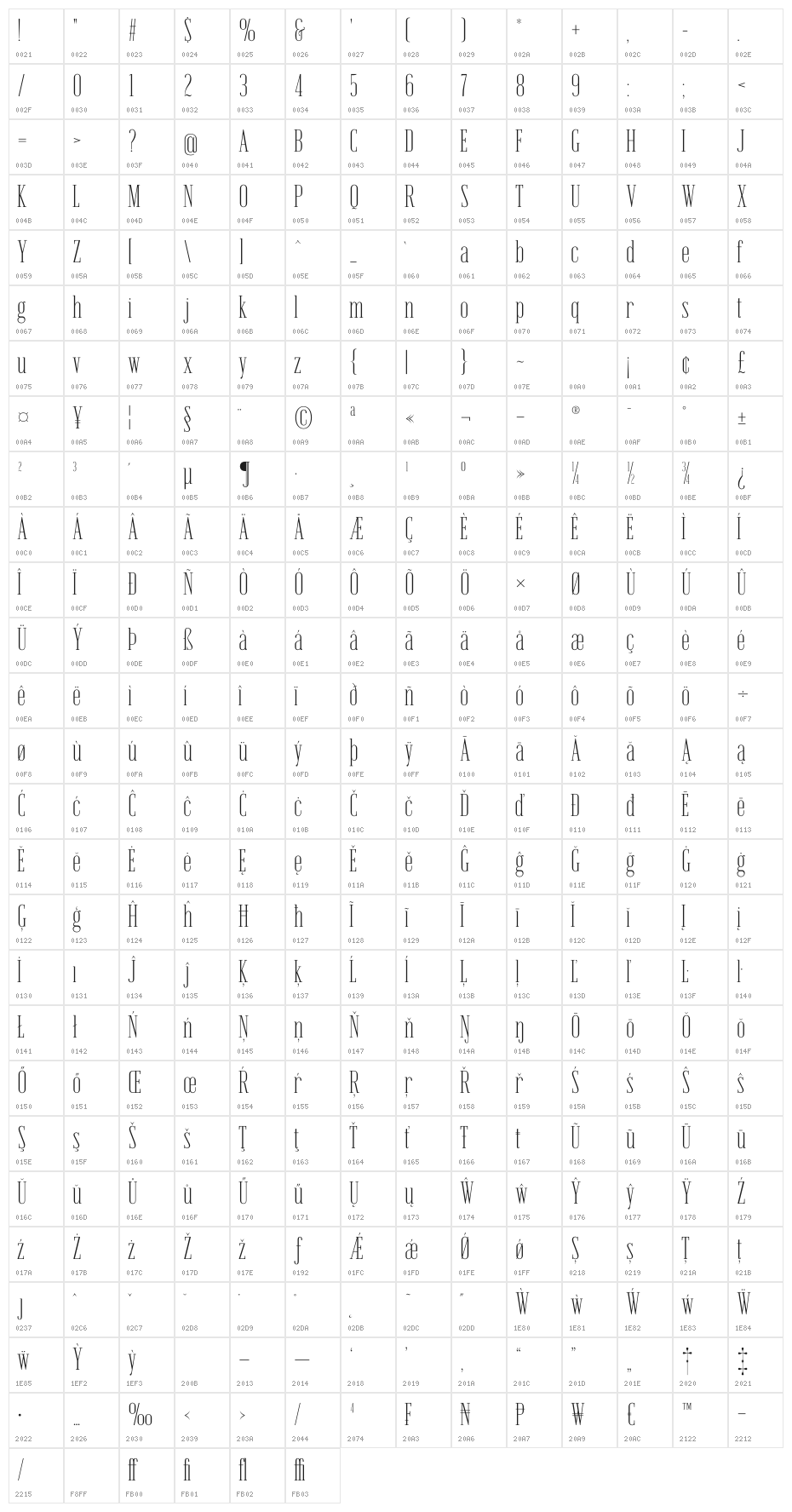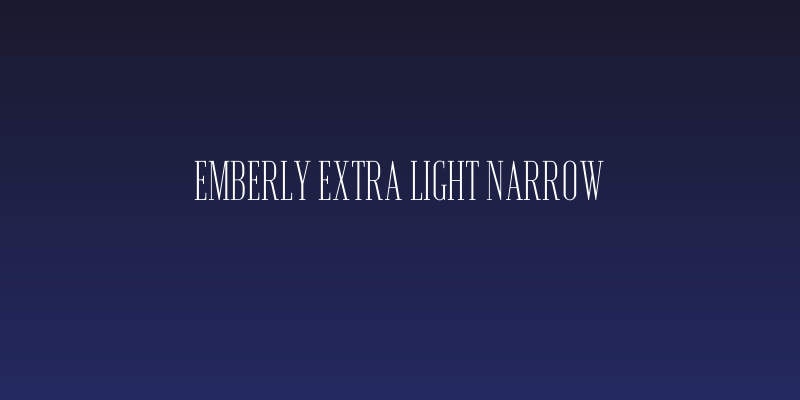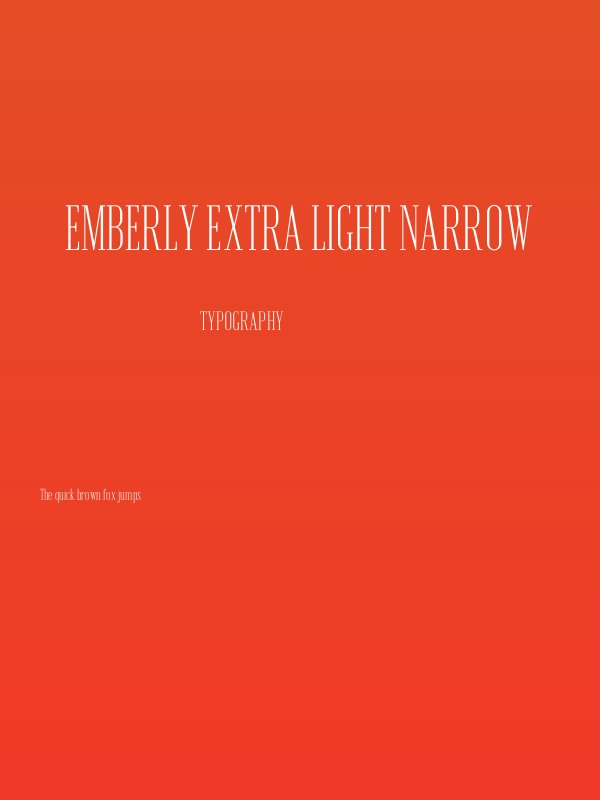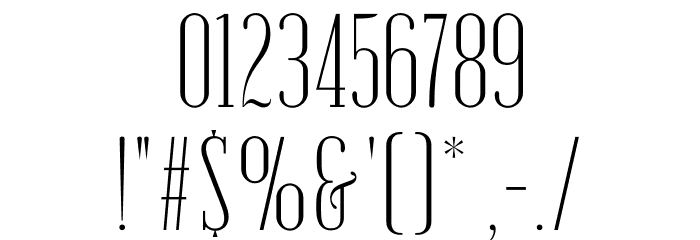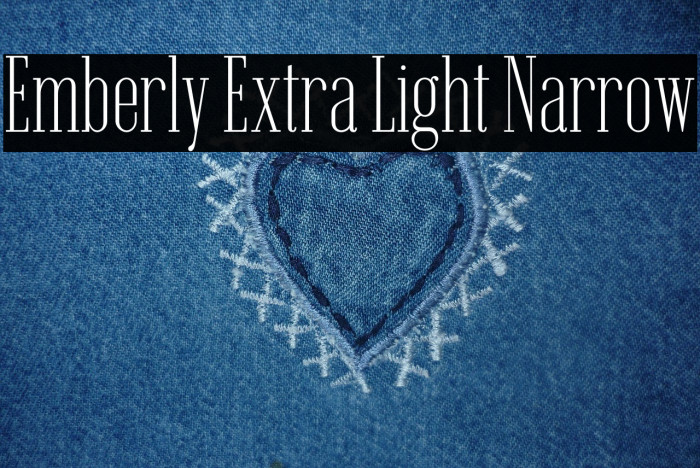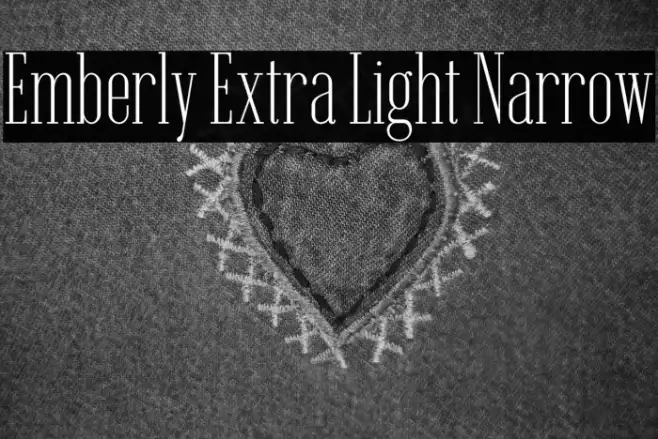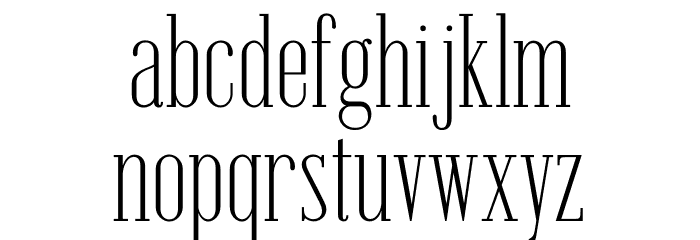
Emberly Extra Light Narrow Font
Emberly Extra Light Narrow Description
This font features an elegant and refined design with tall, narrow letterforms that exude sophistication. The extra-light weight gives it a delicate appearance, while the narrow width enhances its modern and sleek aesthetic. The characters are well-proportioned, with a consistent stroke width that maintains a clean and polished look. The font's high contrast between thick and thin strokes adds a touch of drama, making it suitable for attention-grabbing headlines or stylish branding. Its overall style is both contemporary and timeless, offering versatility for various design applications.